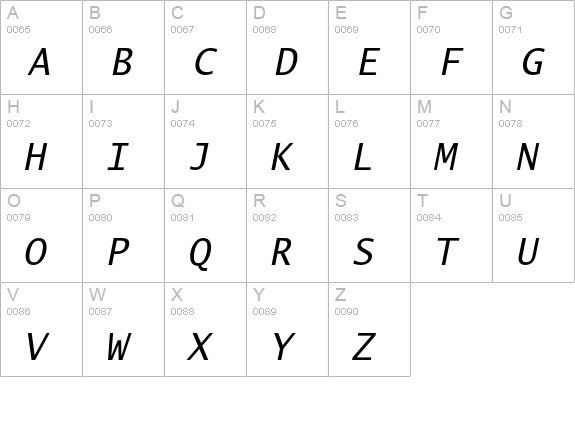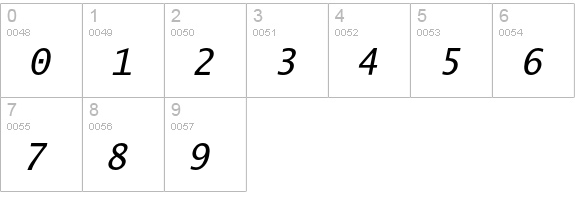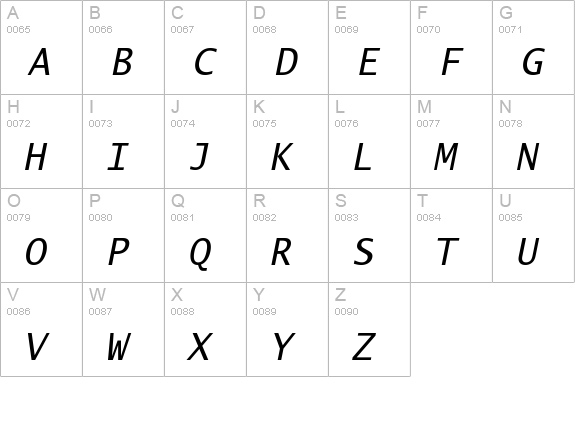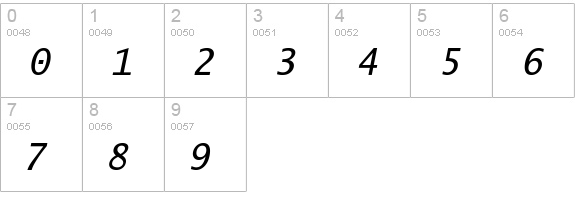
LucidaMonoEF-RomanItalic Font Details
LucidaMonoEF-RomanItalic is a sleek and elegant font that combines the classic look of a monospaced typeface with a touch of modern italic styling. Its clean lines and balanced letterforms make it perfect for a wide range of design projects, from coding and programming to graphic design and branding. The italicized slant adds a dynamic and sophisticated flair to your text, making it stand out while maintaining readability. What makes LucidaMonoEF-RomanItalic even more appealing is that it is available for free download at FontsMarket.com. This means you can easily access this high-quality font without any cost, making it a valuable addition to your font library. Whether you're working on a personal project or a professional design, LucidaMonoEF-RomanItalic is a versatile choice that will elevate your typography game.